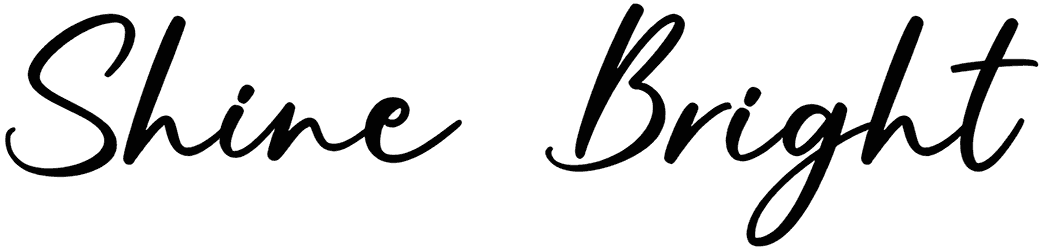
Shine Bright Font
Elevate your work to the next level with this new gorgeous handwritten font, Shine Bright. It comes with all the unique characters you may need in a natural, fascinating, and lovely display. This quote font is a great choice for personal gift cards, Valentine’s concepts, wedding invitations, feminine branding, and all the designers who want to bring a handmade touch.